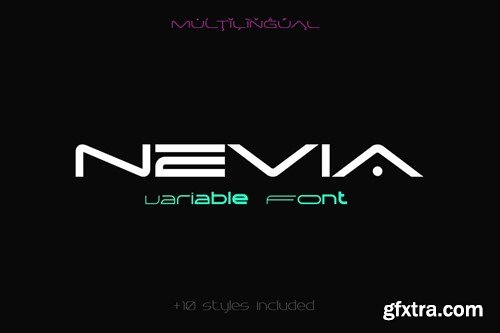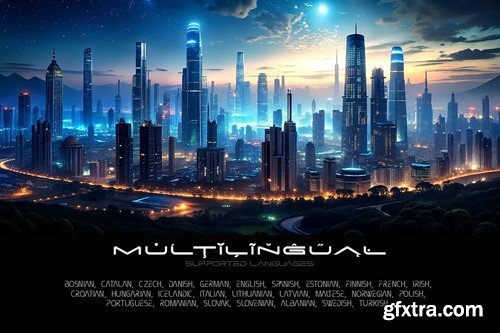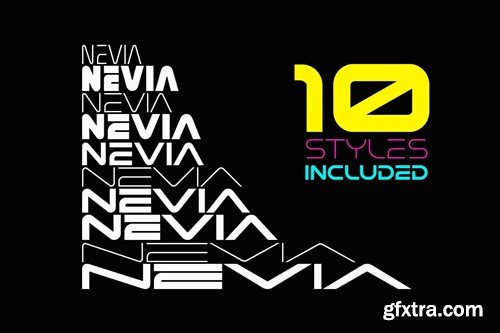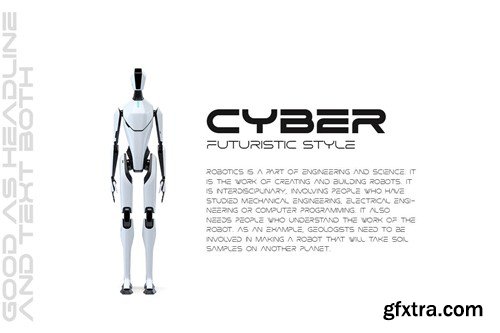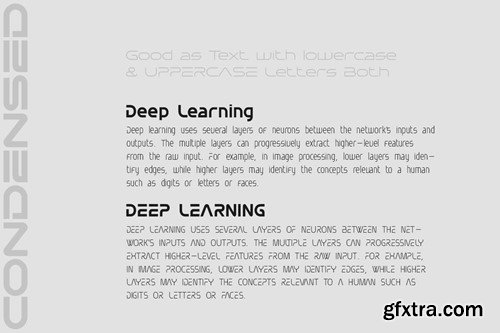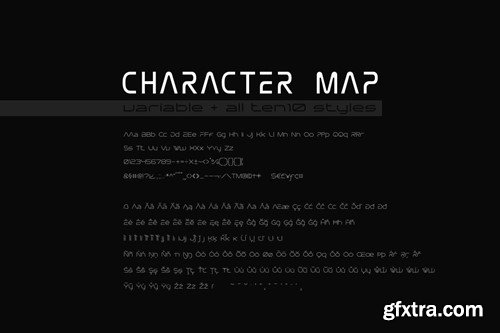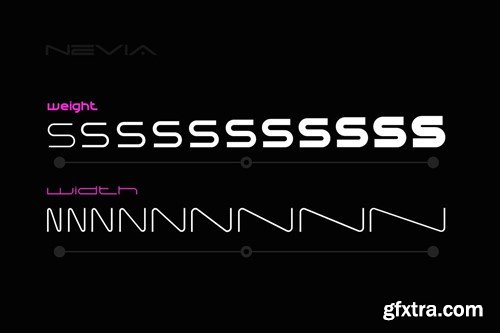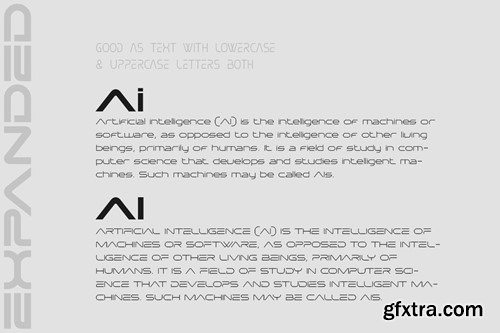
Nevia 变形字体 S9ADMW6
Nevia is Variable Font creates modern futuristic hi-tech atmosphere and style. Variable Controls are: Weight and Width. It is created basing on Font Family of 10 styles (Light, Bold, Condensed, Expandedetc.) which allows Nevia looks good as Headline and as Text both. -------------------------- Multilingual support (LatinPro & Salvian Cyrillic). Supported Languages: Bosnian, Catalan, Czech, Danish, German, English, Spanish, Estonian, Finnish, French, Irish, Croatian, Hungarian, Icelandic, Italian, Lithuanian, Latvian, Maltese, Norwegian, Polish, Portuguese, Romanian, Slovak, Slovenian, Albanian, Swedish, Turkish. -------------------------- File includes: